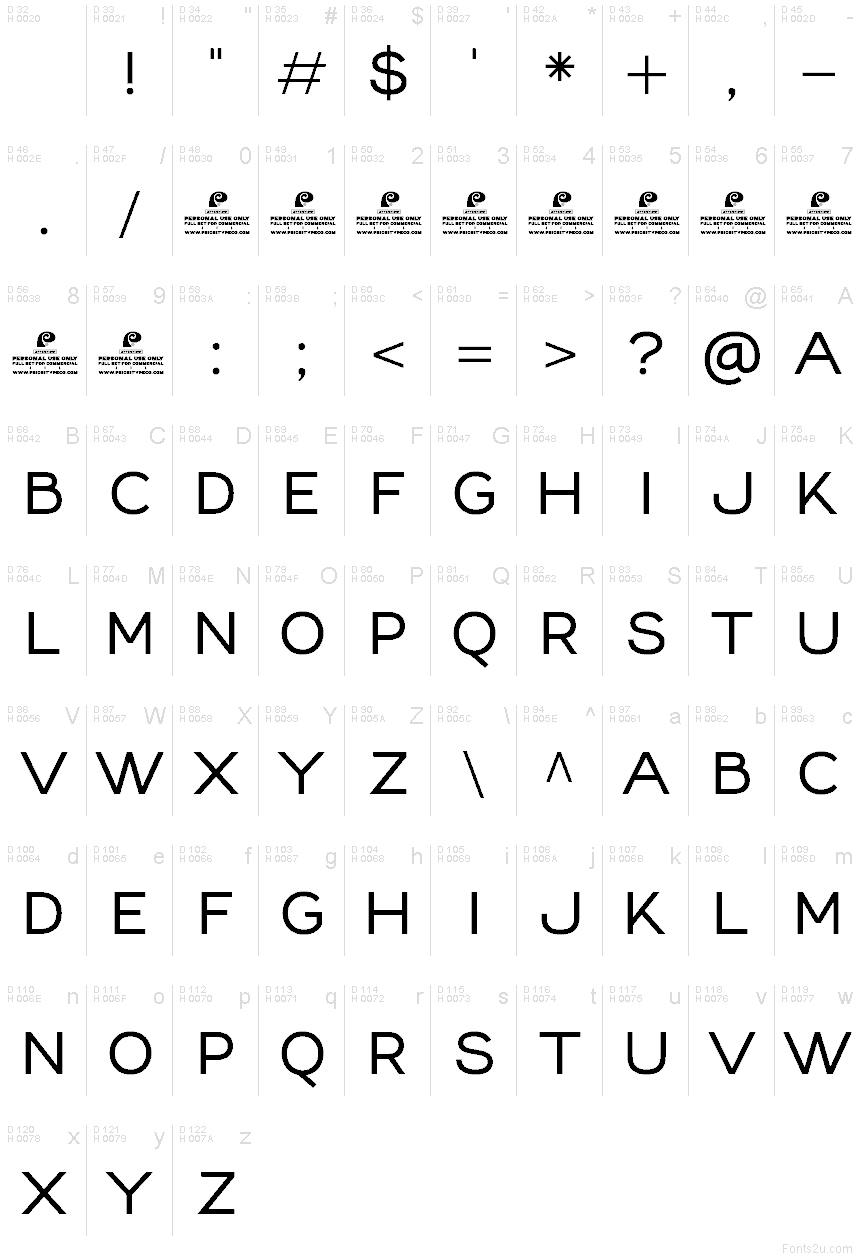
Loede DEMO Medium
Loede font by Prioritype Co is a free modern geometric sans serif typeface that solves the “too cold vs. too cute” problem. Its rounded bowls and tidy, even strokes feel friendly, while the straight stems and clean joins keep everything crisp and professional. Letters sit with calm, airy spacing, so headlines lock up neatly without fuss and logos read at a glance.
Using Loede, you get a steady rhythm that shines on brand identities, tech landing pages, event posters, clean packaging, signage, editorial pull quotes, and UI headers. This free font carries weight without shouting, thanks to open counters and balanced proportions. Pair it with a simple serif for body copy, or give it a touch of extra tracking at large sizes for a refined, confident voice.